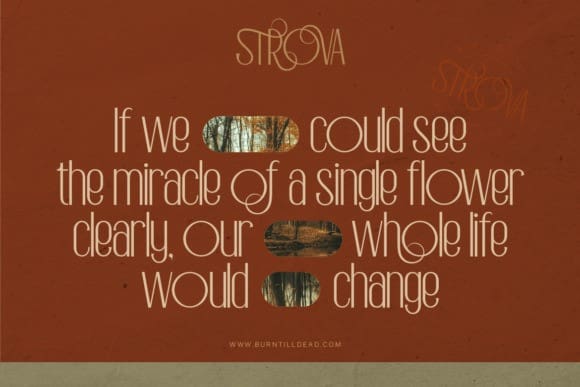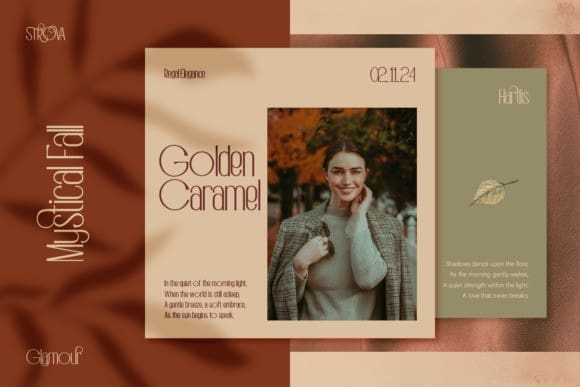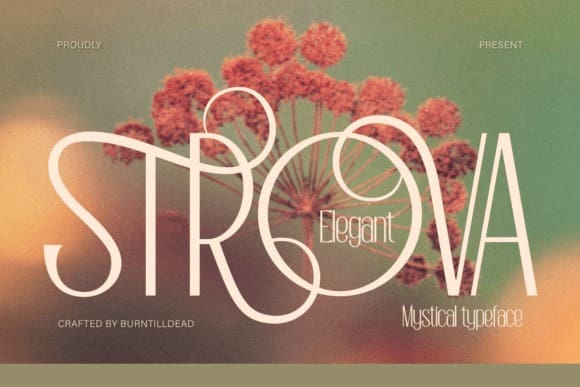
Strova Font
Strova Font, our mystical typeface. Did you ever heard about a typeface for the dreamers? Like you dive into a world of magic with typography. Strova Font is crafted with delicate curves and refined details, showing an air of grace while whispering tales of wonder. With elegant curves, this font evokes the charm of forgotten spells. Ideal for invitations, book covers, and branding that seeks to evoke a sense of mystery and allure, this typeface transforms ordinary text into a captivating experience. Whether you’re conjuring an ethereal atmosphere or adding a touch of class to your design, let this typeface elevate your creativity and transport your audience to a realm of elegance and enchantment.